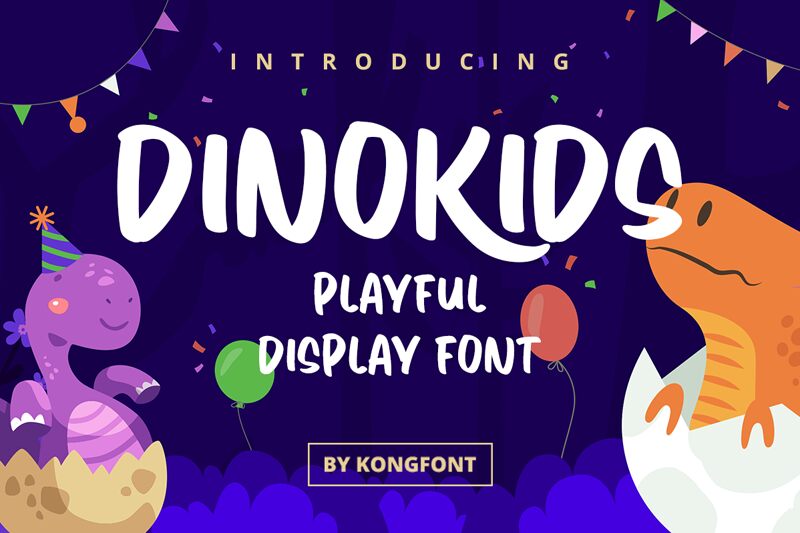
Dinokids font by Kong Font is a fun and youthful cartoon typeface with a chubby handwritten style. The letters present bold uniform stroke thickness with rounded edges all around. They are approachable and exude a playful, soft tone to any ongoing project. The free font, in addition to other goodies, comes in uppercase, lowercase, numbers and some punctuation marks.
What can you use Dinokids for? Designing comic books, children’s books (covers or content), kids’ games interfaces; creating funky text logos; decorating school websites or stationery; typesetting poster headlines published online or outdoors.